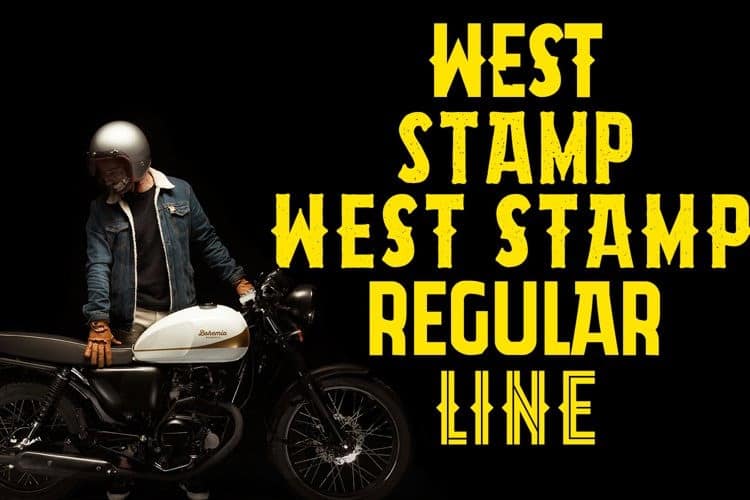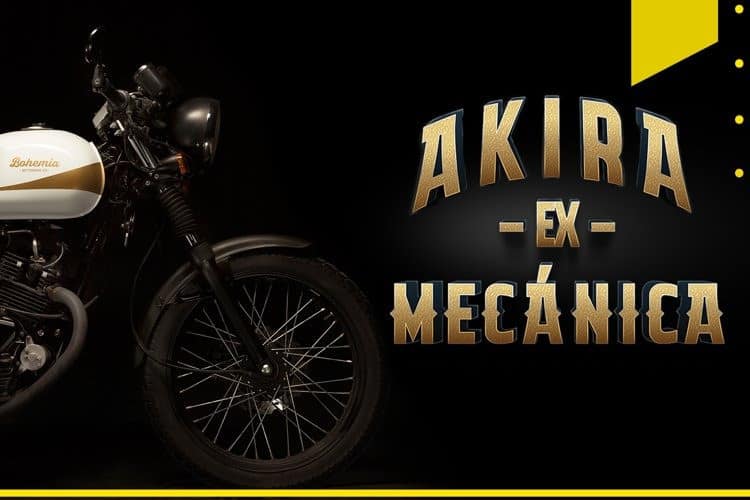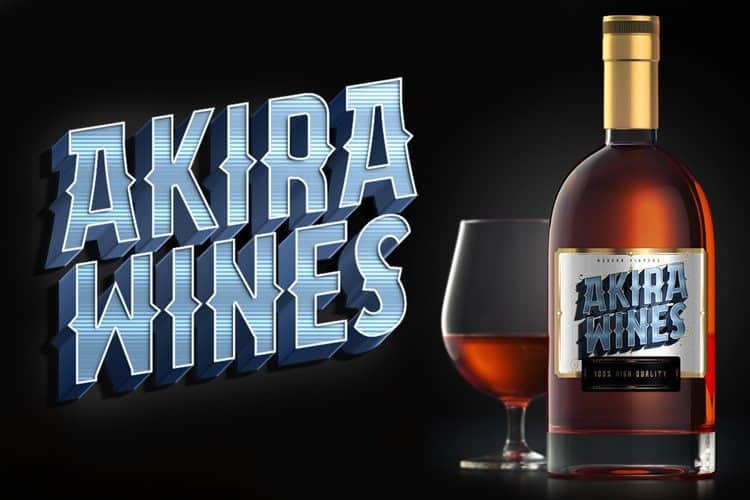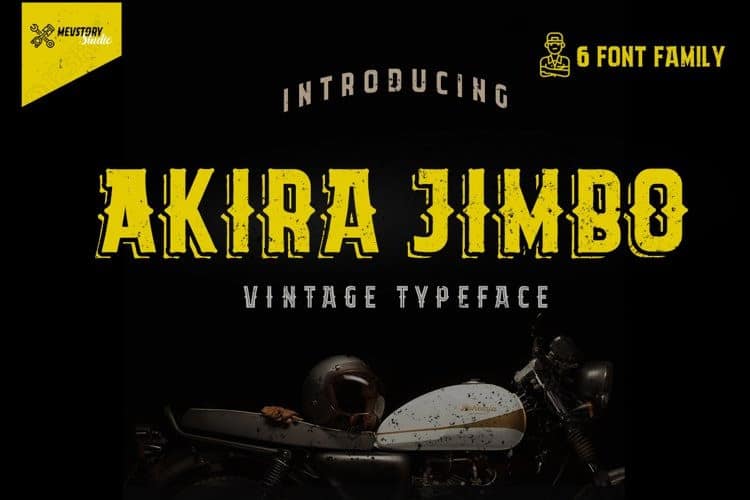
Akira Jimbo Display Font
Introducing Akira Jimbo Display Font. Are you looking for a bold vintage decorative font that have a western feeling? We can help! Try to download watson font. This font will gives a feel of vintage, classic, old, handmade looked like by Muhammad Afif Ersya. It contains uppercase, lowercase, punctuation and symbols. Freudian is is perfect for people looking for vintage aesthetic or hand drawn logo. Suitable for any graphic designs such as branding materials, t-shirt, print, business cards, logo, poster, t-shirt, photography, quotes, etc.